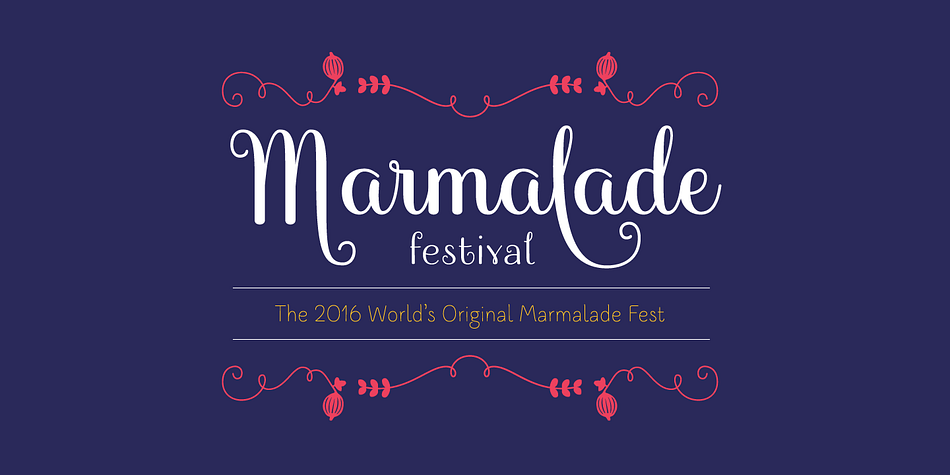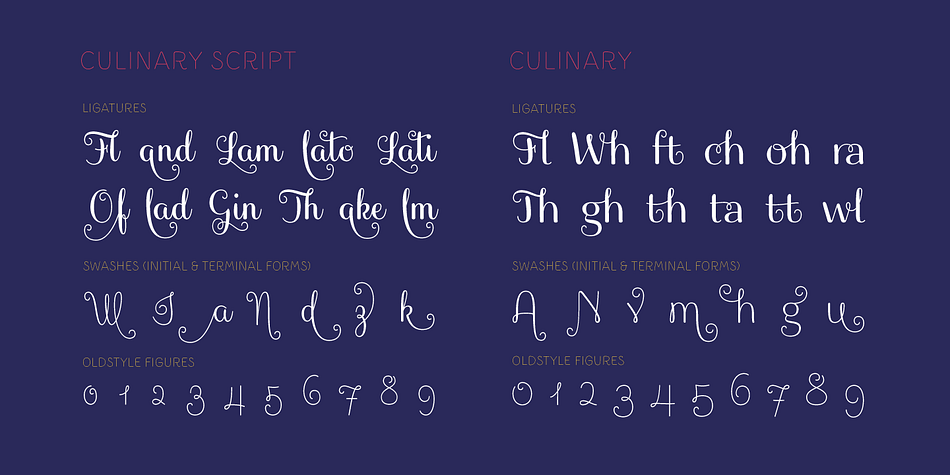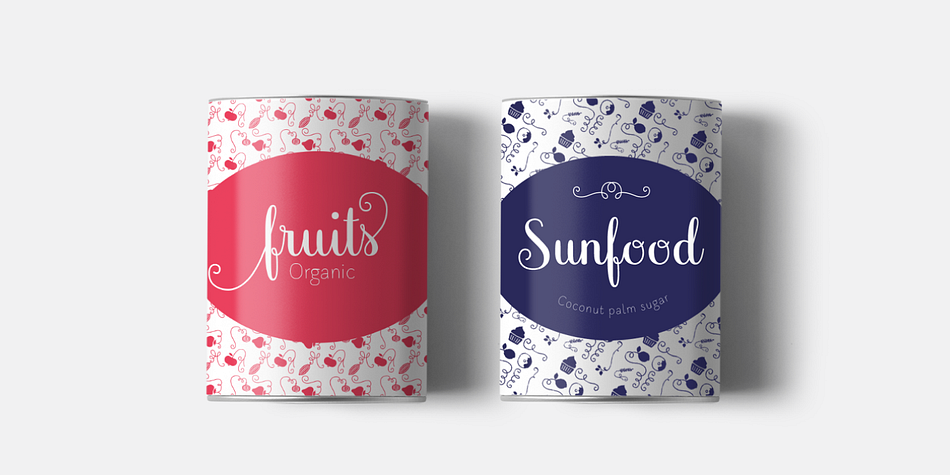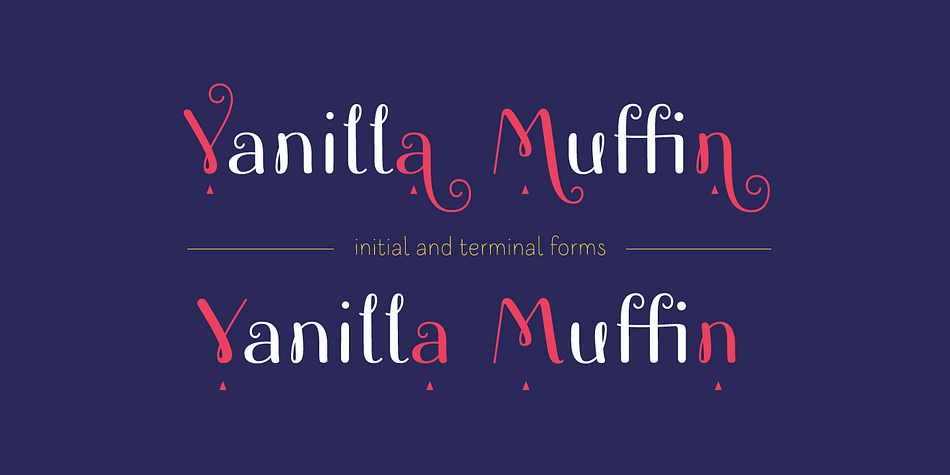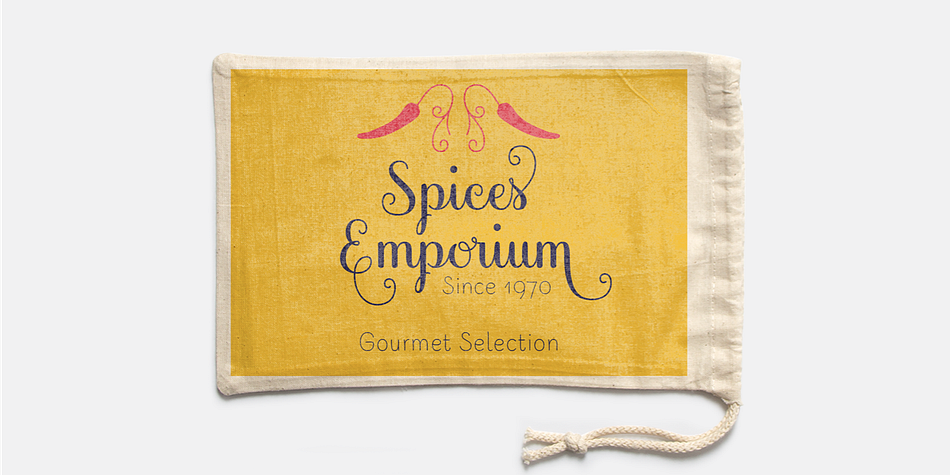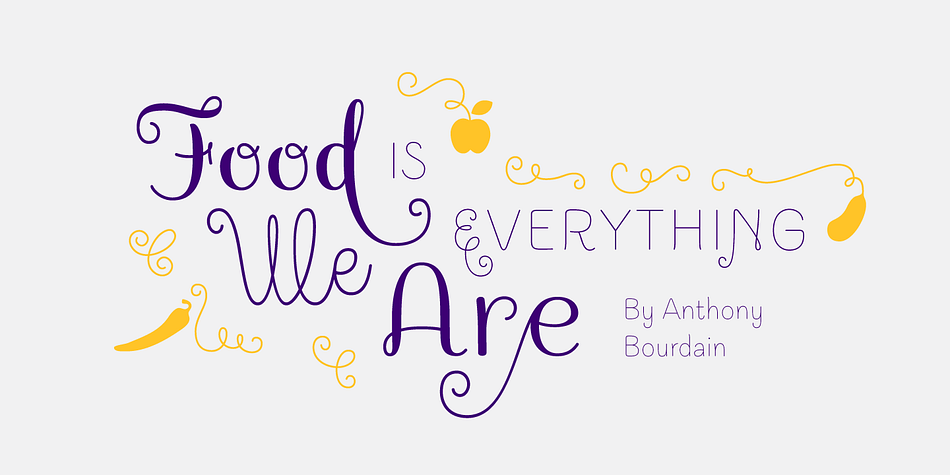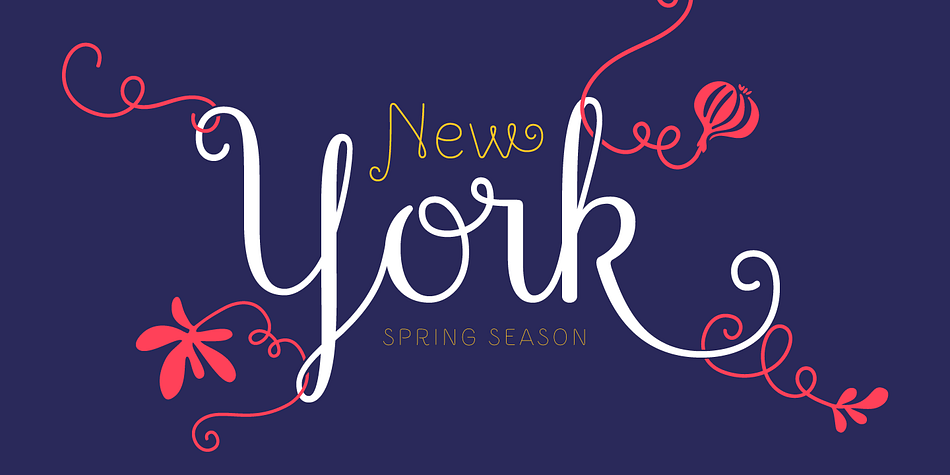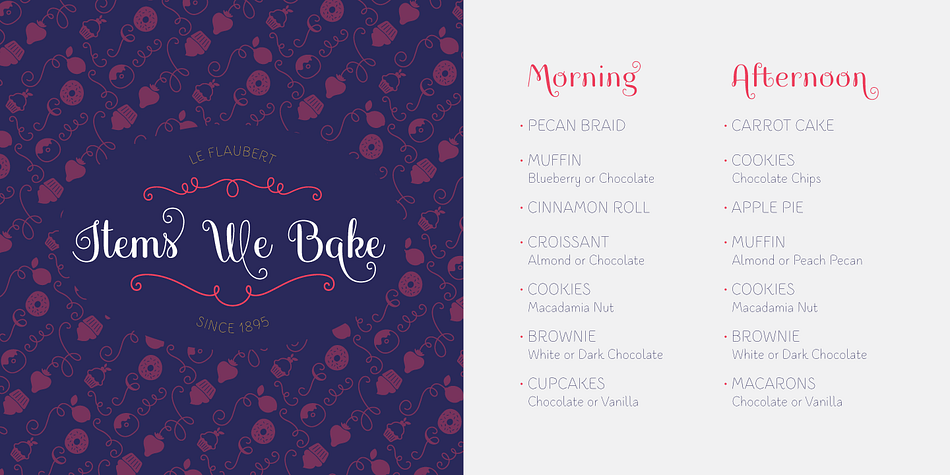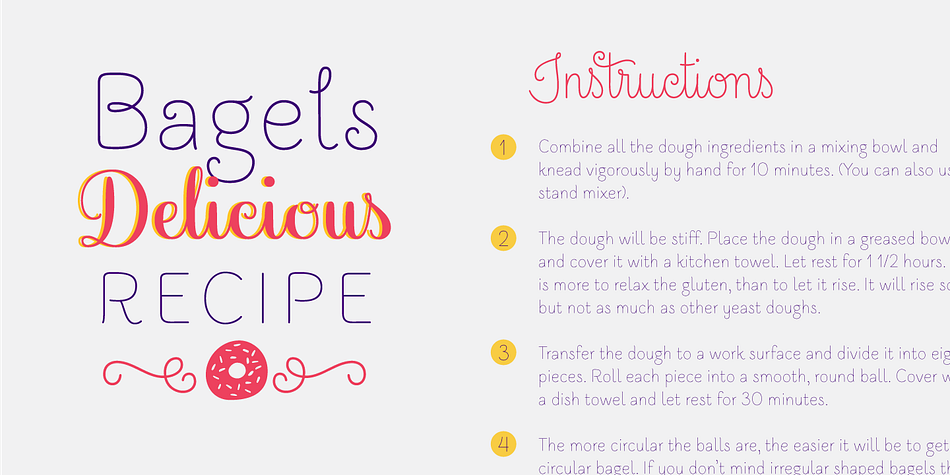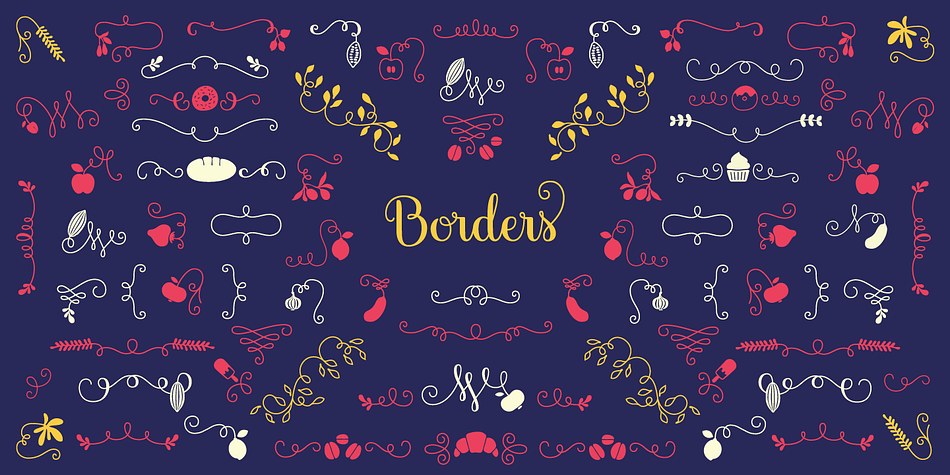
Designed by Sofia Mohr, Culinary is a dingbat, hand drawn and script font family. This typeface has ten styles and was published by Latinotype.
Culinary is a typographic system inspired by the art of cooking.
This family comes with 2 subfamilies: one Regular Family of 4 weights plus a Sans Line font and a set of Borders, and one 4-weight Script Family that also includes Sans Line and Borders.
Culinary is well-suited for packaging, restaurant and cafe branding, bakeries, logos, magazines, menus, recipe books, invitations and much more. The OpenType features allow access to a wide set of characters, including ligatures, swashes, endings, initial and terminal forms, and lots of alternates.